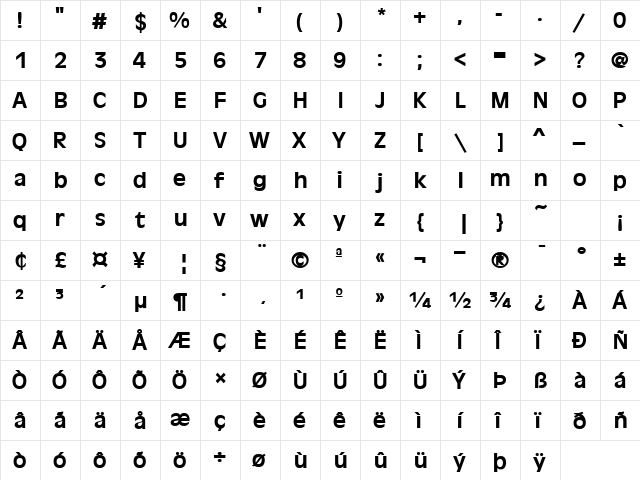
Holland Bold
Design Context for Holland Typeface
Holland offers clean, dependable letterforms without strong stylistic allegiance, making it a practical choice for designers who need flexibility. The heavy weight commands attention and anchors typographic hierarchies.